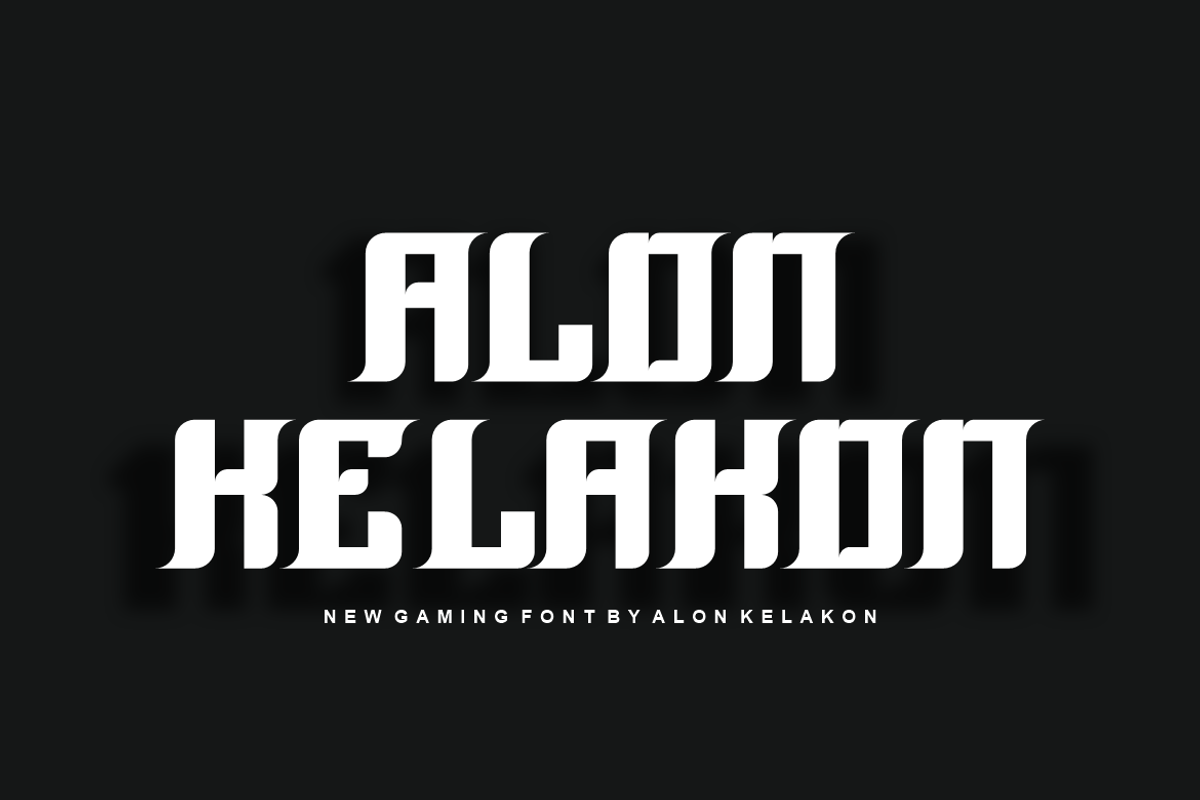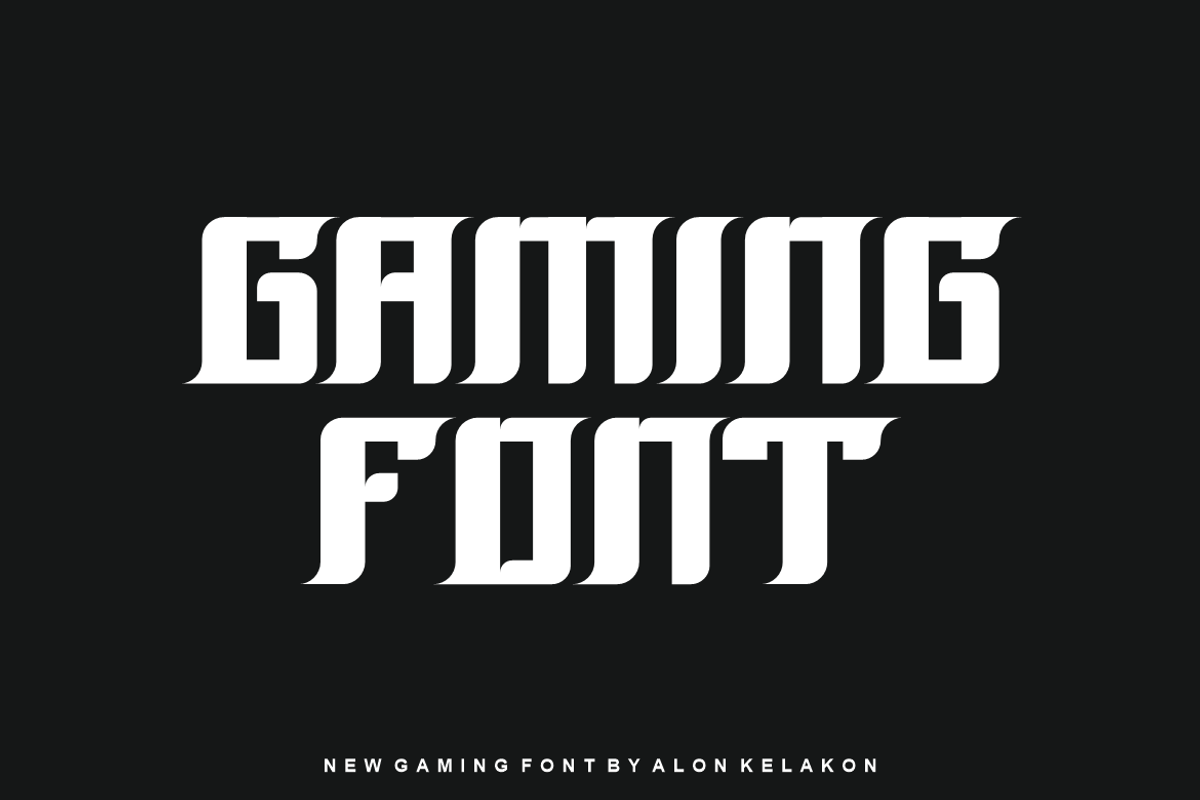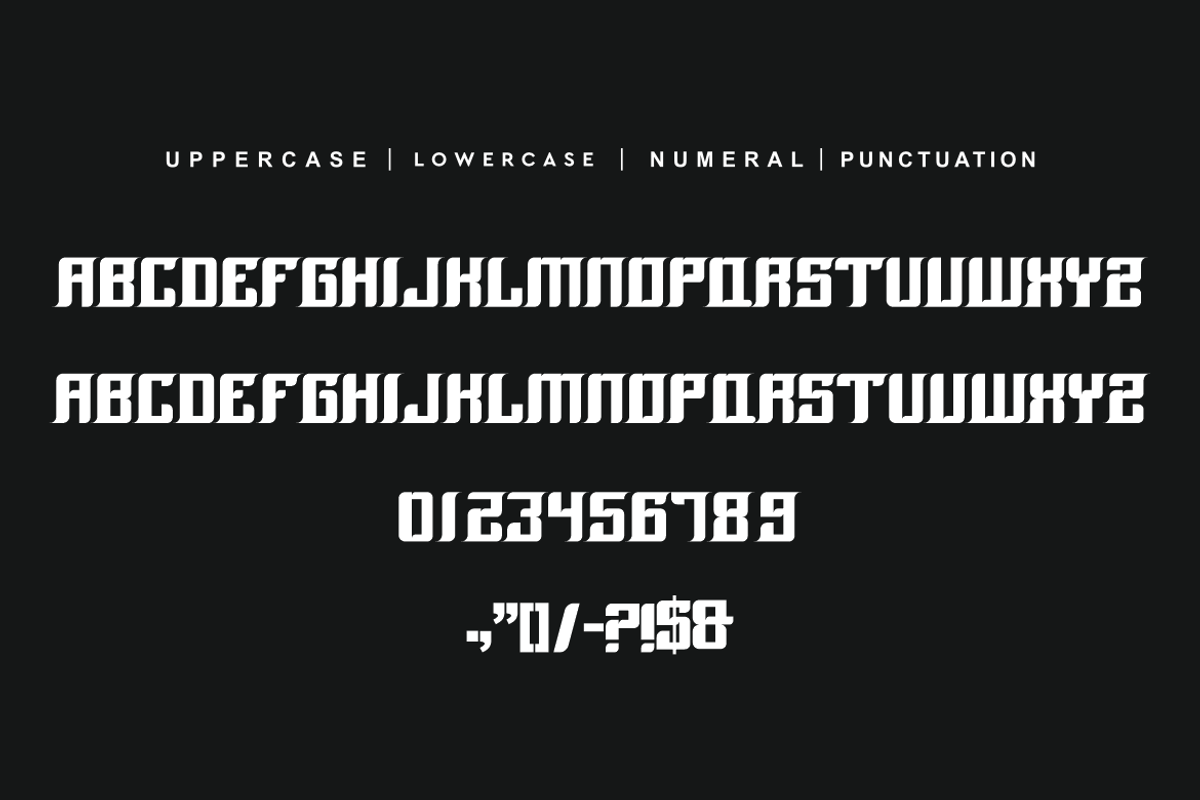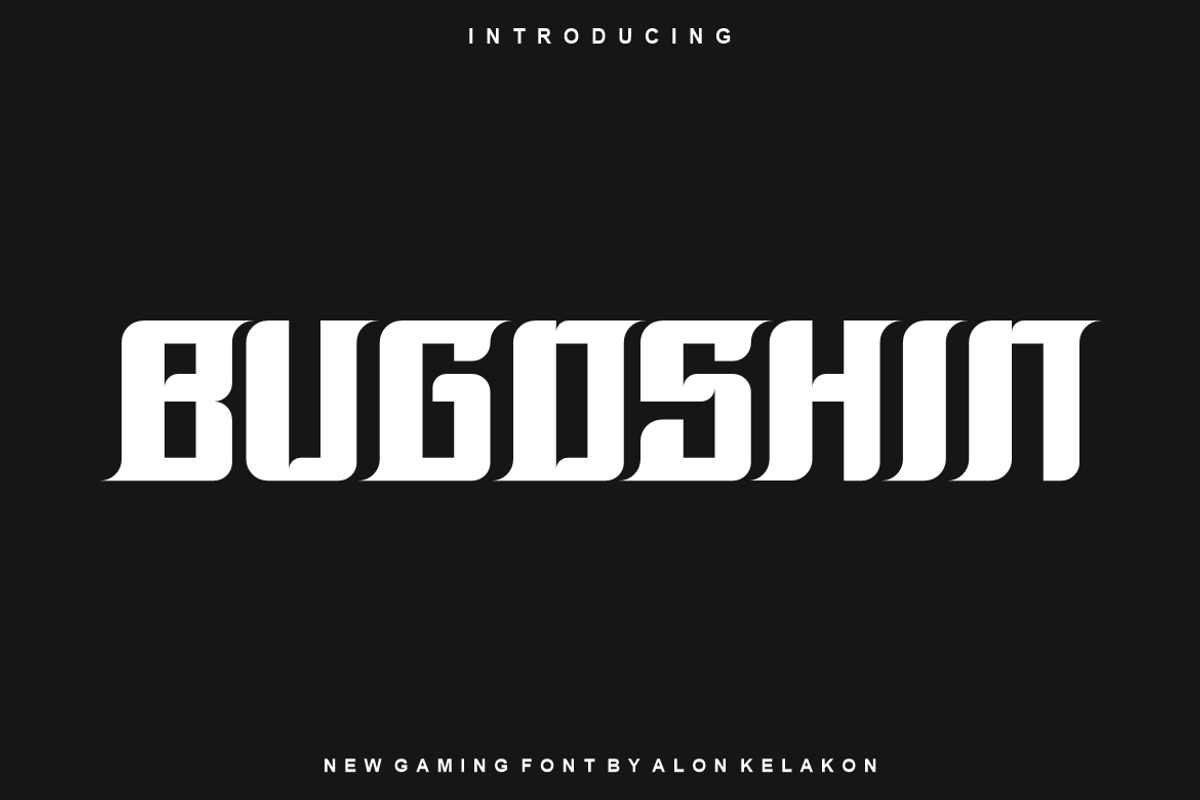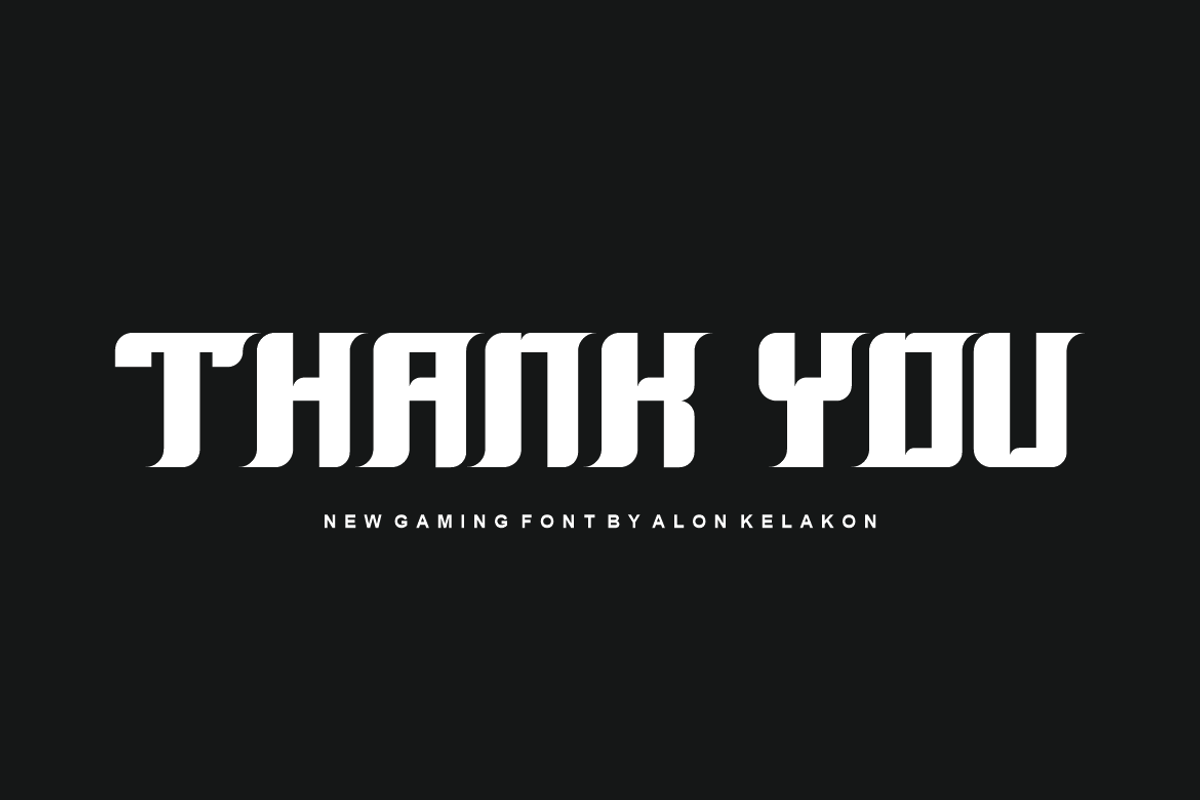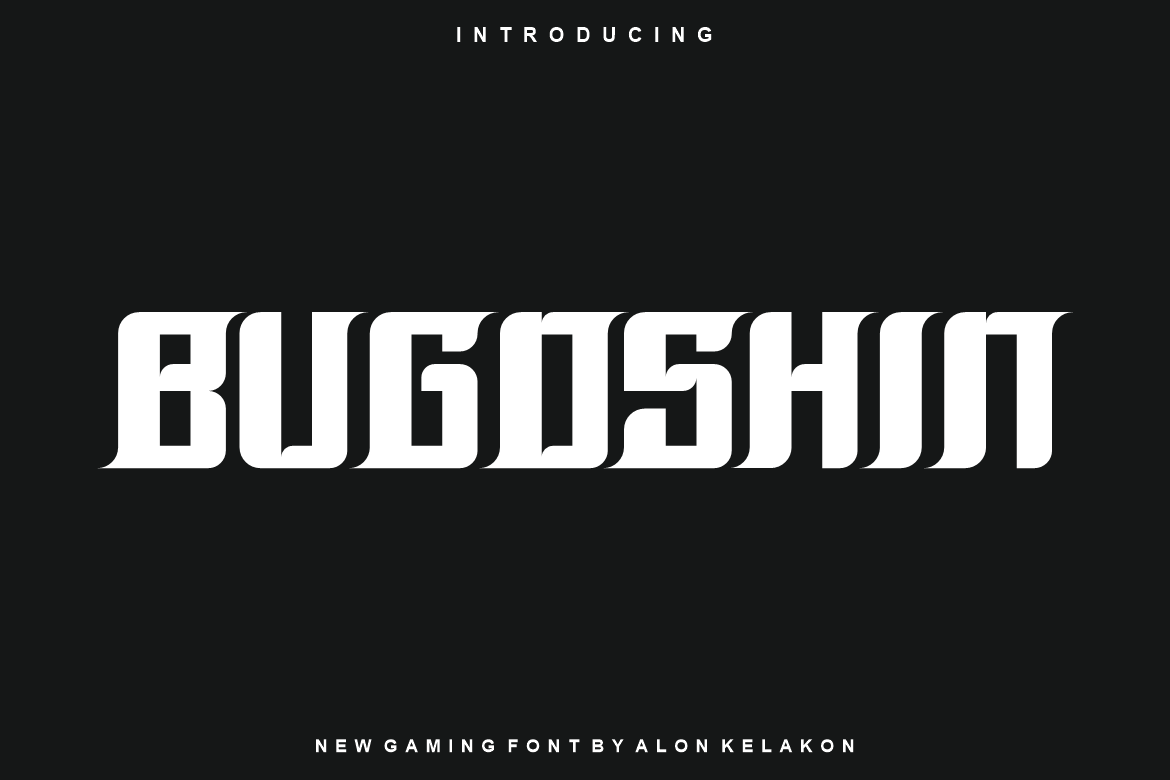
Bugoshin Font
Bugoshin Font Font is unique . Ready to use for your design like labeling, clothing, movie sceen, poster, movie title, gigs, album covers, logos, and much more.